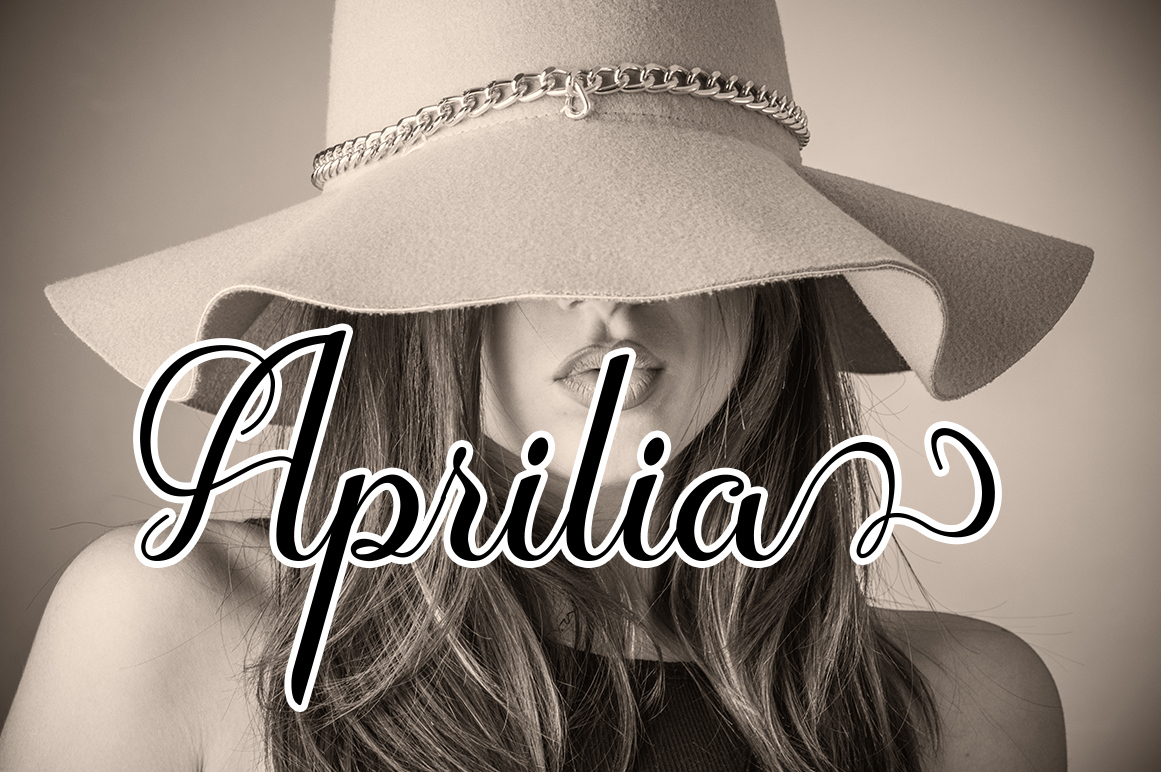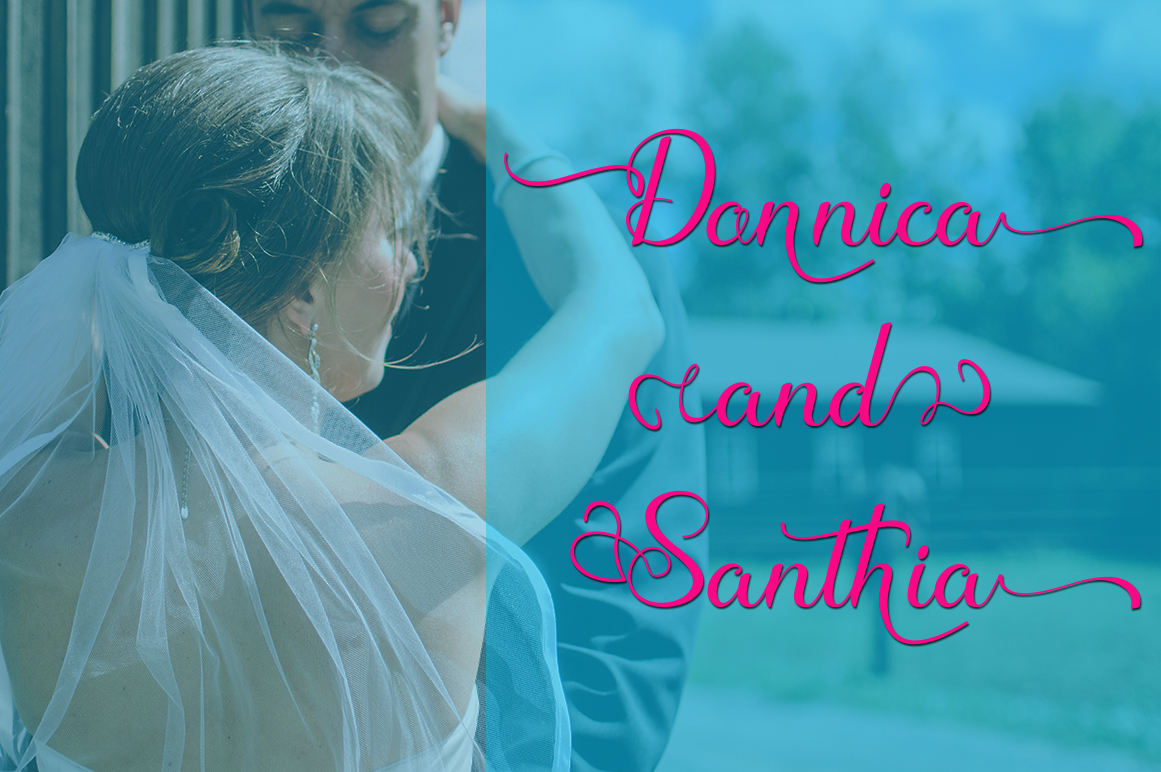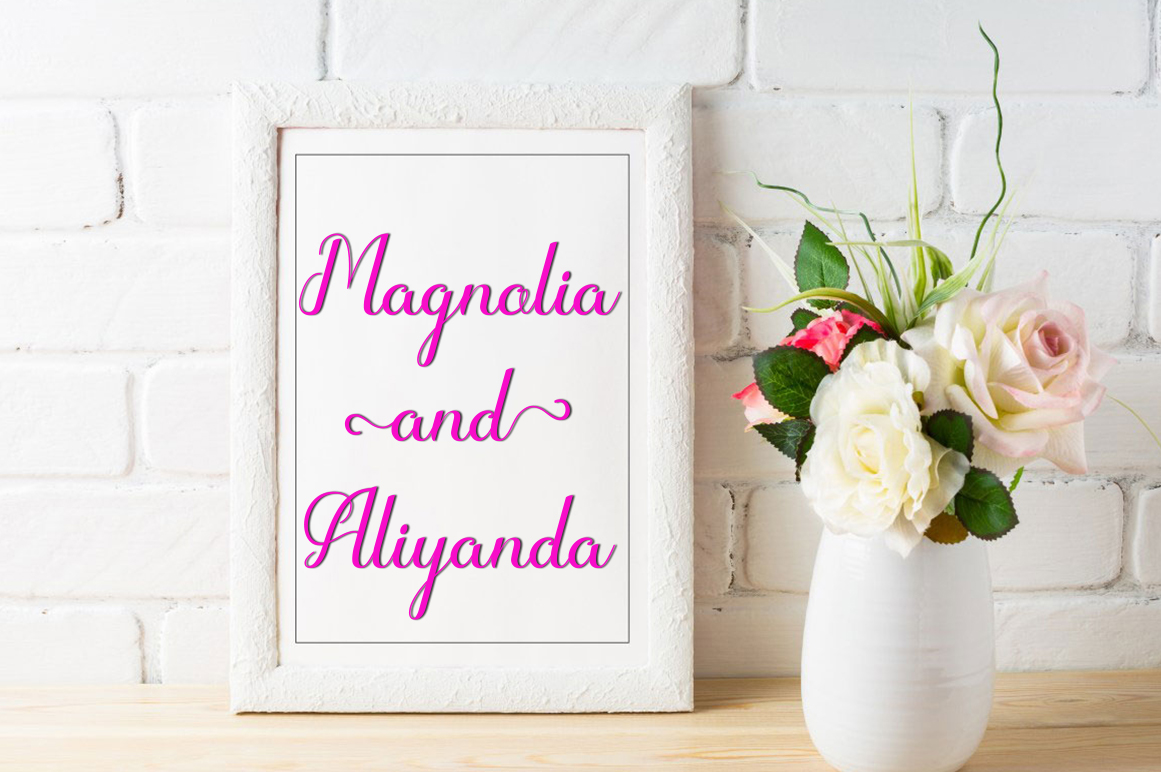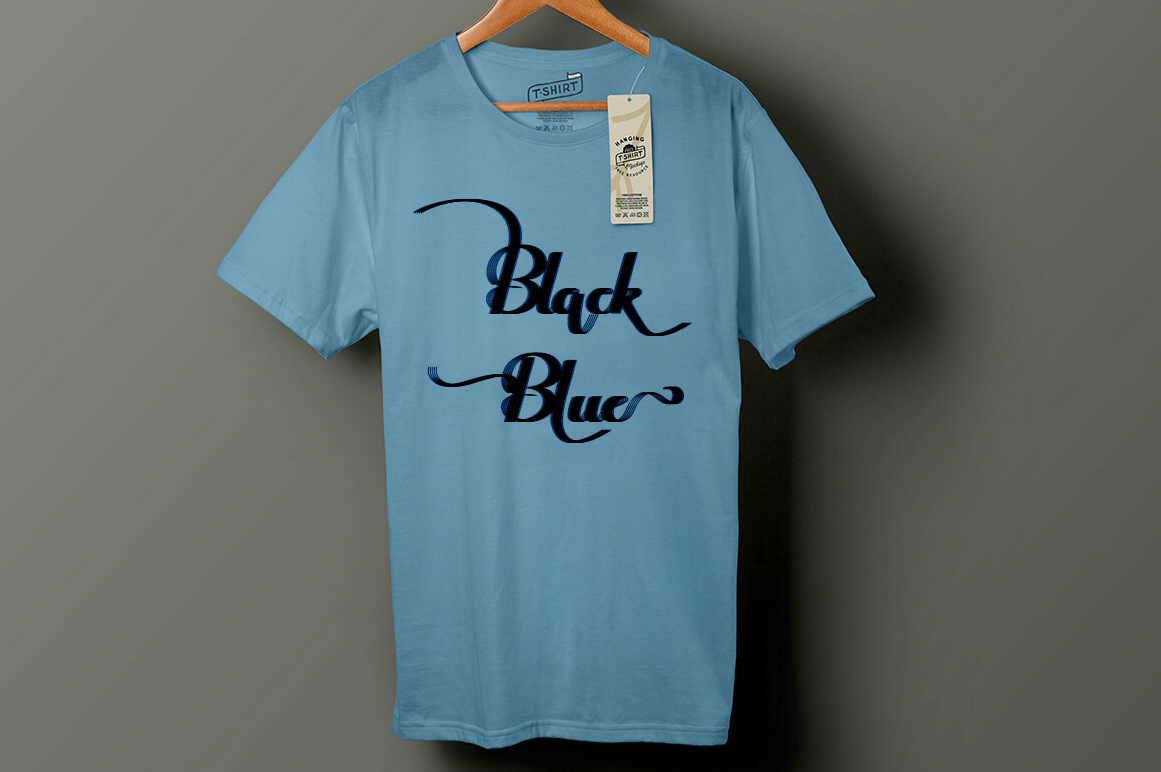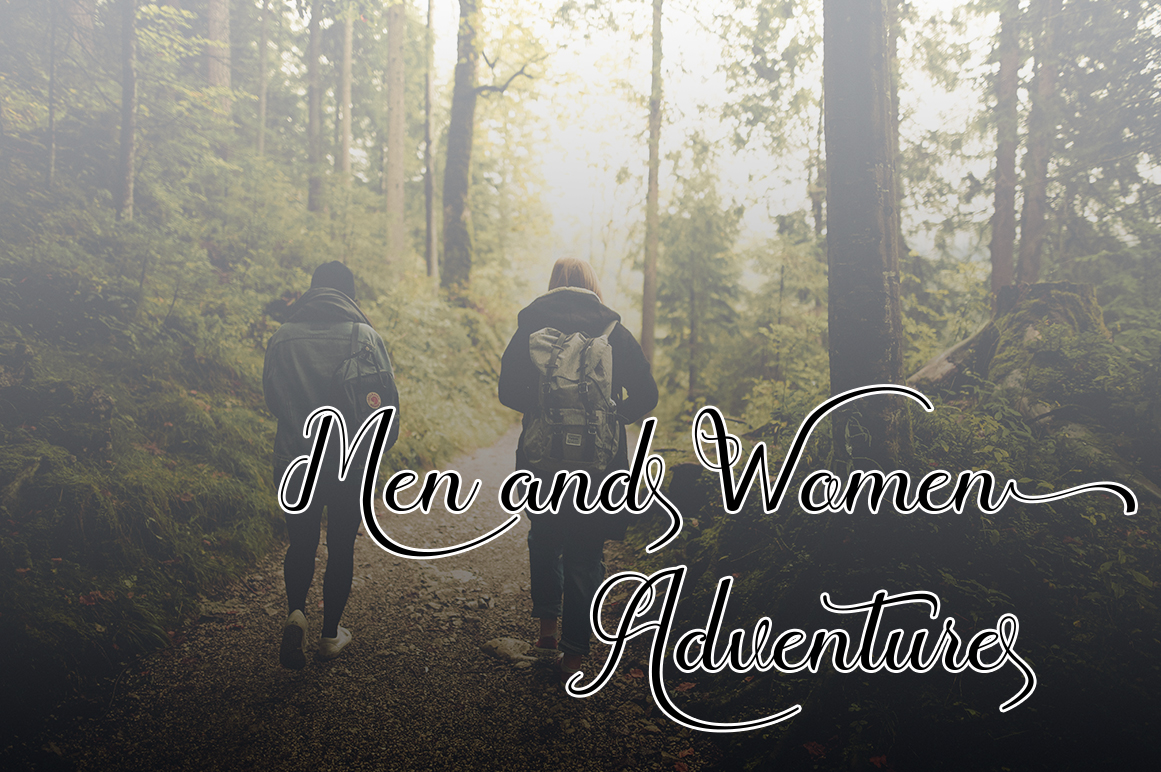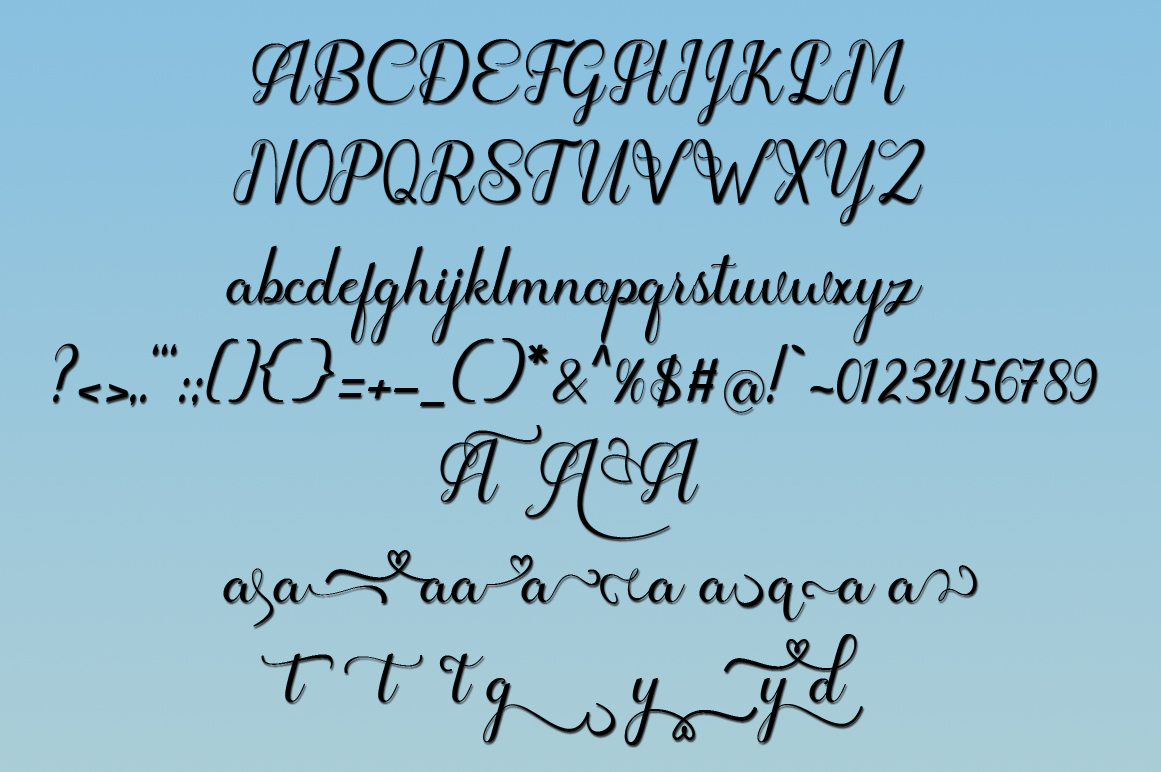
Introduction to Hipnotis Font
As a designer, you’ve probably found yourself staring at a blank page, desperate for that perfect font to bring your creative project to life. The blank slate can be intimidating, but what if you stumbled upon a font that not only sparks inspiration but also offers endless possibilities for customization? Enter the Hipnotis Font, a stunning and fresh calligraphy font that’s about to become your new go-to design resource.
With over 570 glyphs, this high-quality font is a treasure trove of creative potential. Whether you’re working on a special occasion design or a more complex project, Hipnotis Font has got you covered. Its versatility and robust nature make it an invaluable asset for designers, and the best part? It’s available for a free download, complete with a transparent background that lets your design shine.
Key Features of Hipnotis Font
- High-quality, unique design perfect for creative projects requiring a distinctive touch.
- Transparent background, allowing for seamless integration with any design or image.
- Available in various font sizes and resolutions, making it suitable for a range of applications.
- Unique, hand-drawn style that adds a touch of elegance and sophistication to any design.
- Perfect for use in logos, branding, and other creative projects where a distinctive font is required.
Honest Review: Hipnotis Font
As a designer, I’m always on the lookout for high-quality design resources to elevate my creative projects. Recently, I had the opportunity to try out the Hipnotis Font, and I’m excited to share my thoughts with you.
- ✨ Unique and creative design style that adds a touch of sophistication to any project
- ✨ High-quality vectors that maintain their crispness even when scaled up or down
- ✨ Transparent background option for seamless integration into designs
- ⚠️ Limited character set, which may not be suitable for complex or long-form text-based projects
- ⚠️ Not as extensive a range of font weights and styles as some other fonts on the market
Overall, I’m impressed with the Hipnotis Font’s unique design style and high-quality vectors. While it may not be the most versatile font, it’s an excellent choice for designers looking to add a touch of elegance to their creative projects. As a free download, it’s a great resource to have in your toolkit.
Hipnotis Font is a high-quality design resource perfect for creative projects. This free download offers a unique and stylish font that can elevate your designs to the next level.
Tips for Getting the Most Out of Hipnotis Font
For the best results, use Hipnotis Font with a transparent background to create a clean and modern design. You can also experiment with different font sizes and colors to create a unique and eye-catching effect.
Hipnotis Font is perfect for a variety of design projects, including logos, brochures, business cards, and social media graphics. Its high-quality design and transparent background make it an ideal choice for creative professionals and hobbyists alike.